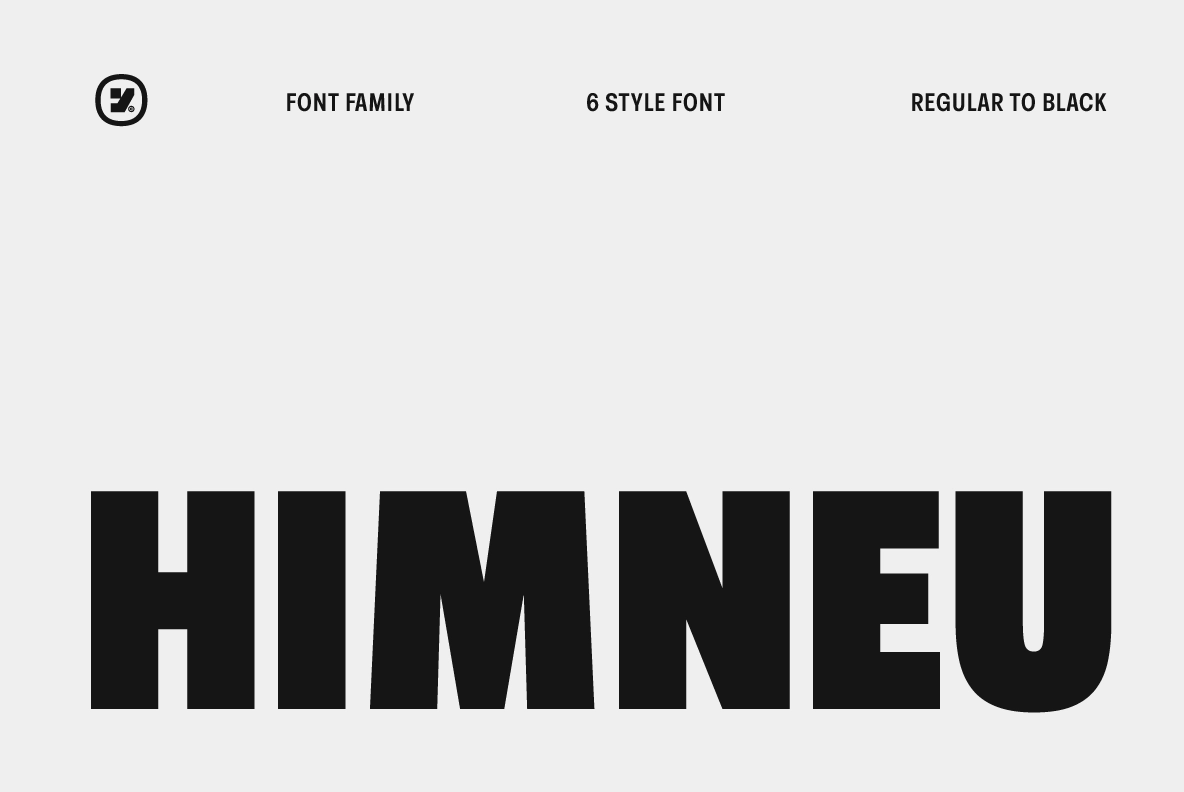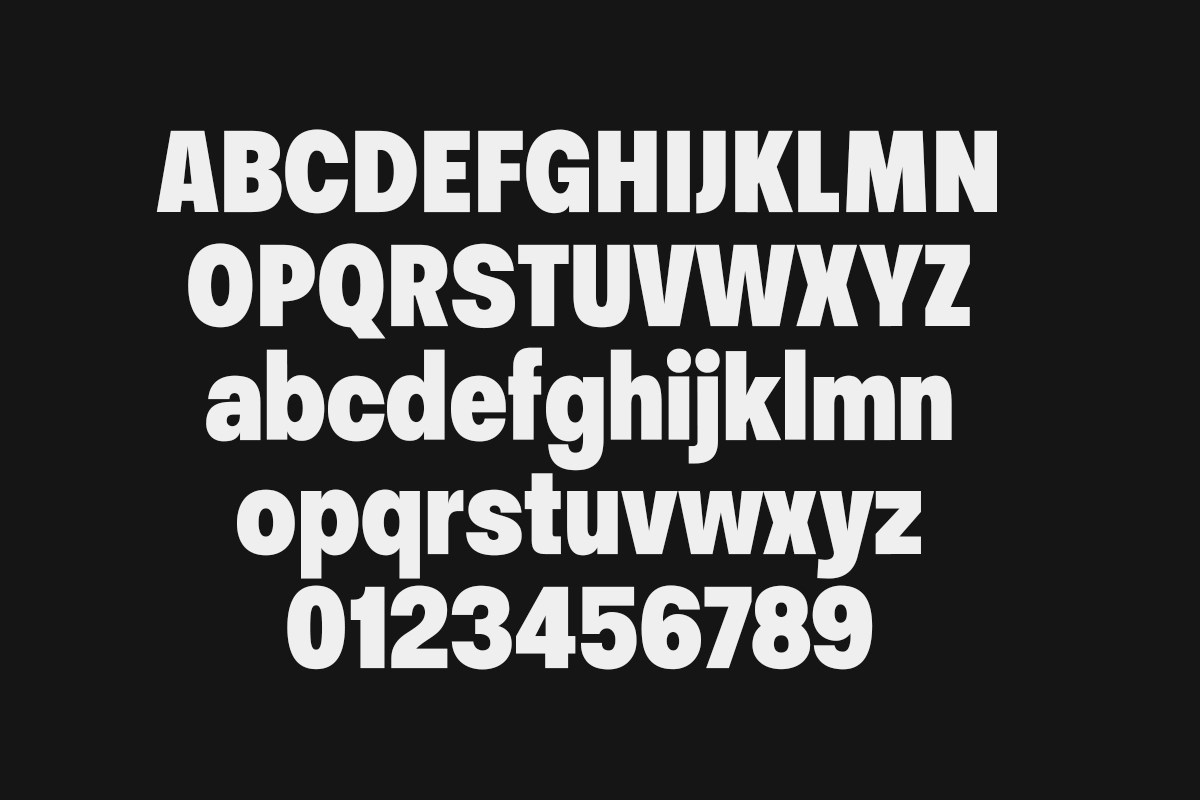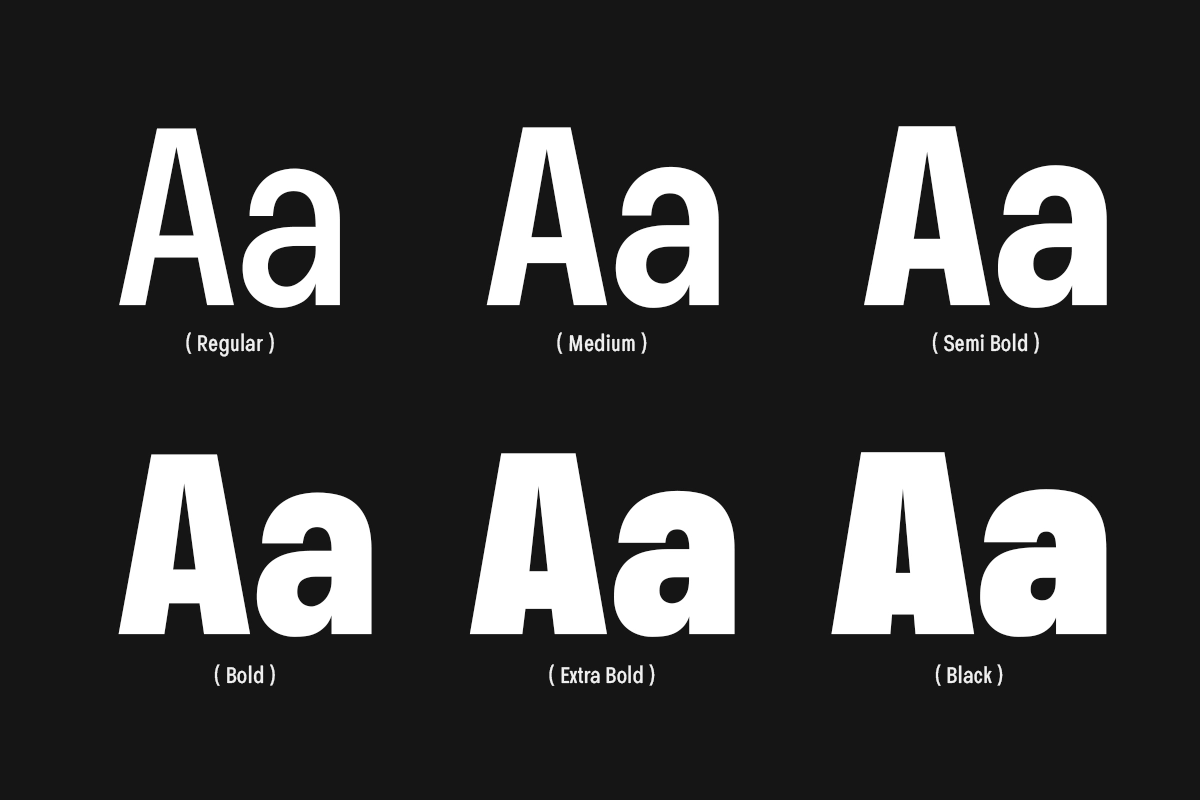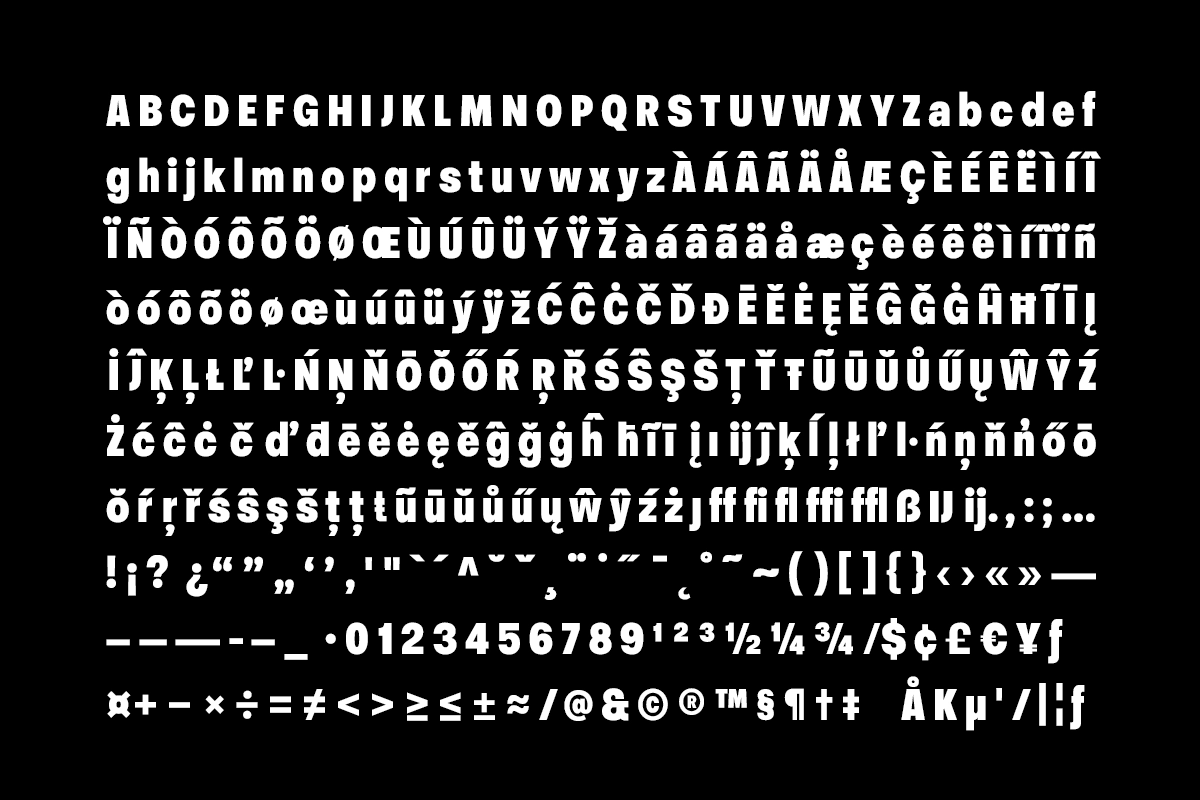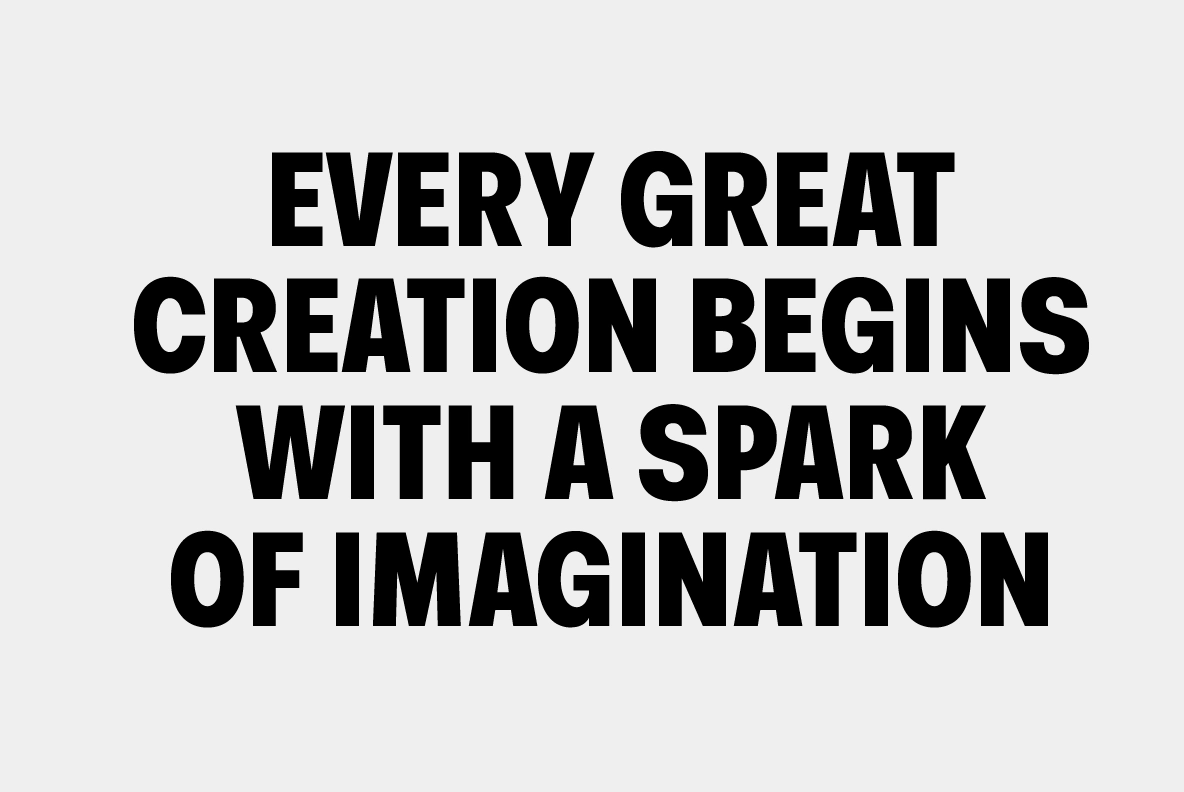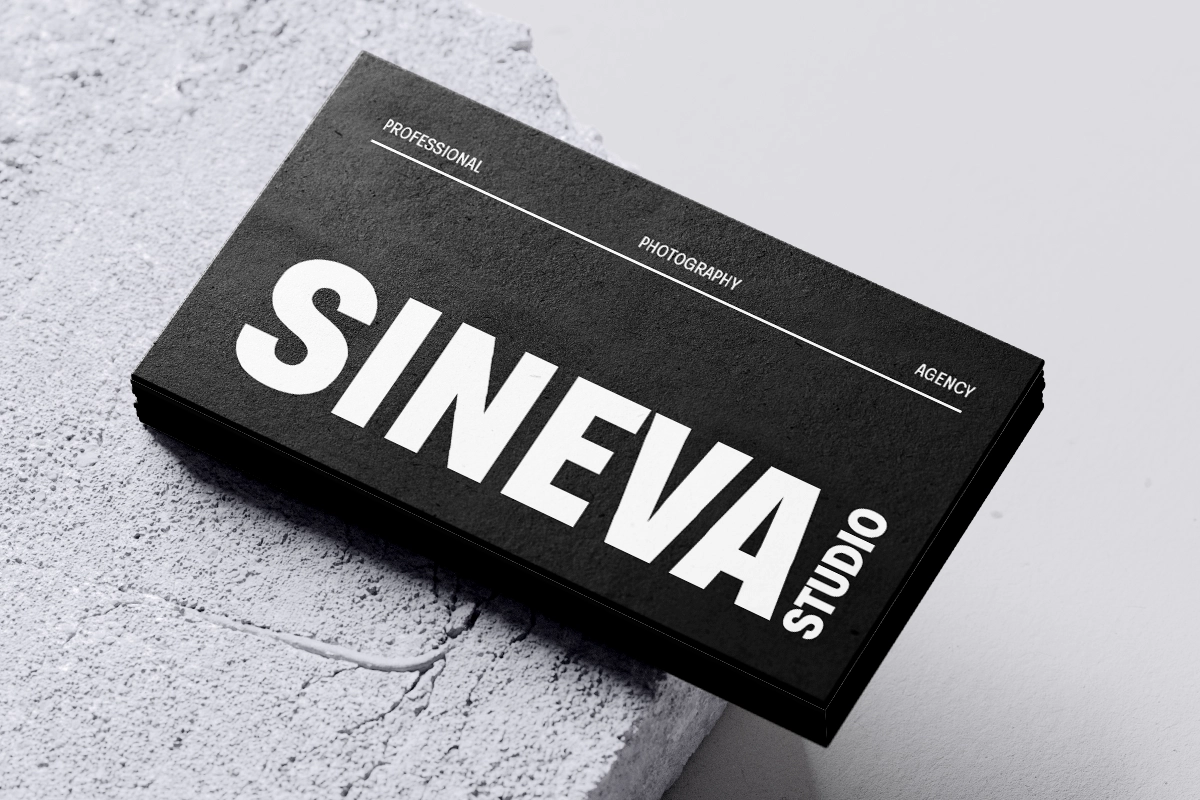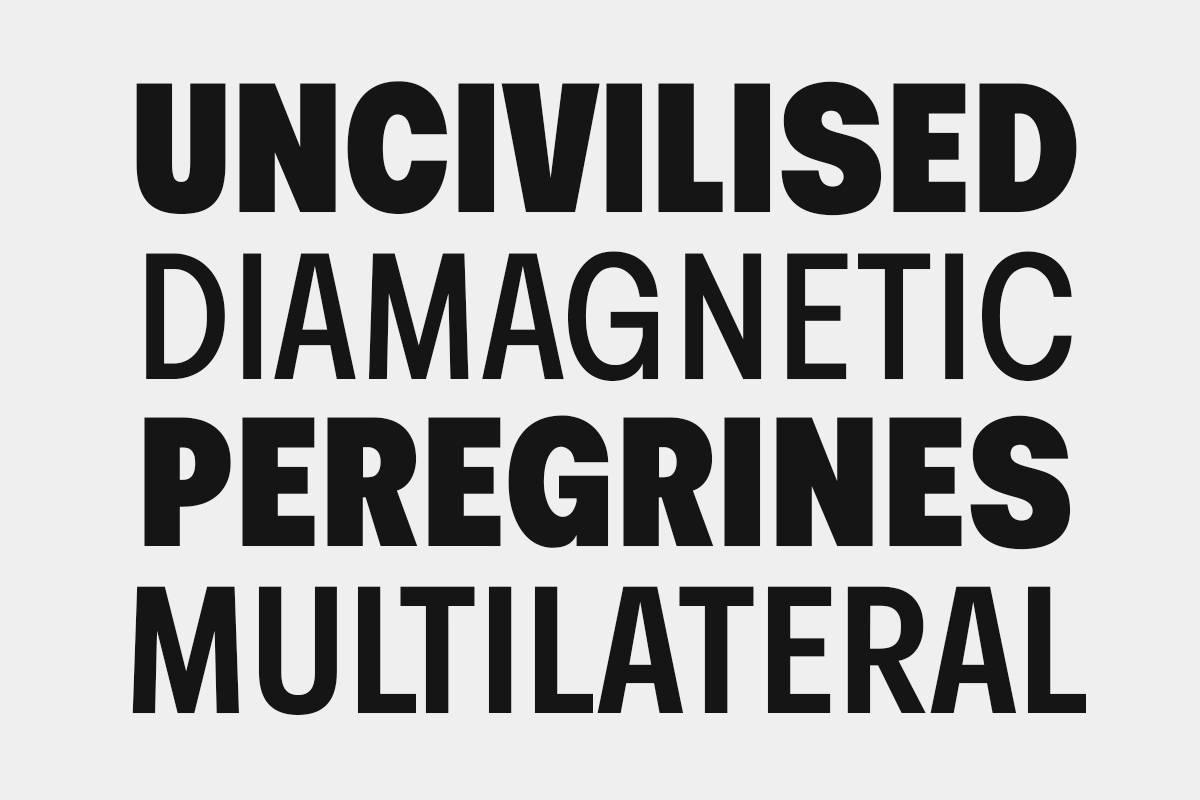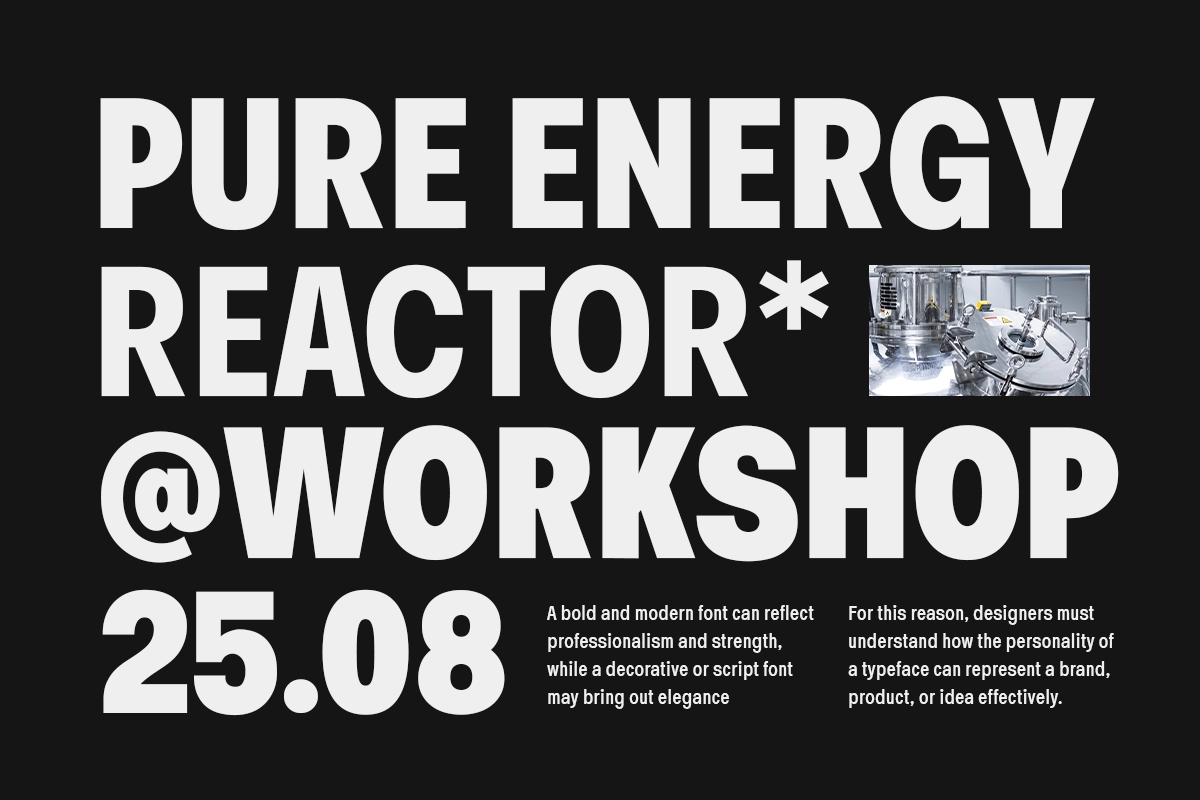
Himneu – Modern Condensed Sans Font
This condensed sans serif is sharp, compact, and built for type that needs to hit fast. Tall letterforms, heavy weights, and tight proportions give it a clear editorial punch across headlines, logos, posters, and brand systems.
Himneu works best in places where typography carries the whole layout: sports identities, gym branding, music covers, hip hop posters, streetwear graphics, magazine titles, packaging, event flyers, web headers, social media campaigns, and punchy logo concepts. The family runs from Regular to Black, so it can cover clean display text, loud hero lines, and stacked typographic compositions without losing its strong shape.
- 6 styles: Regular to Black